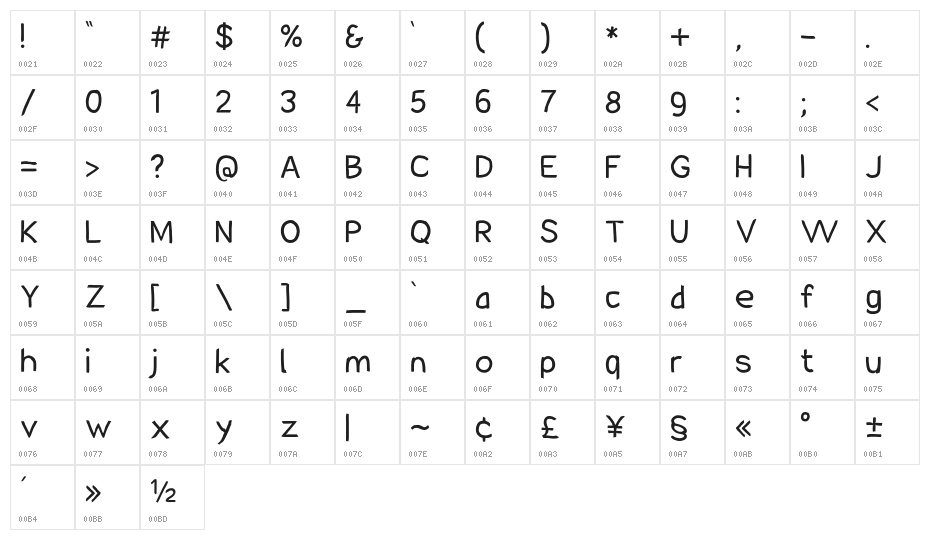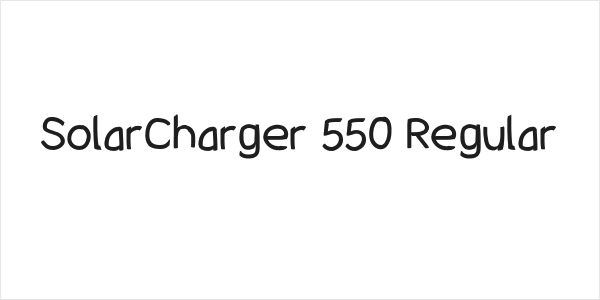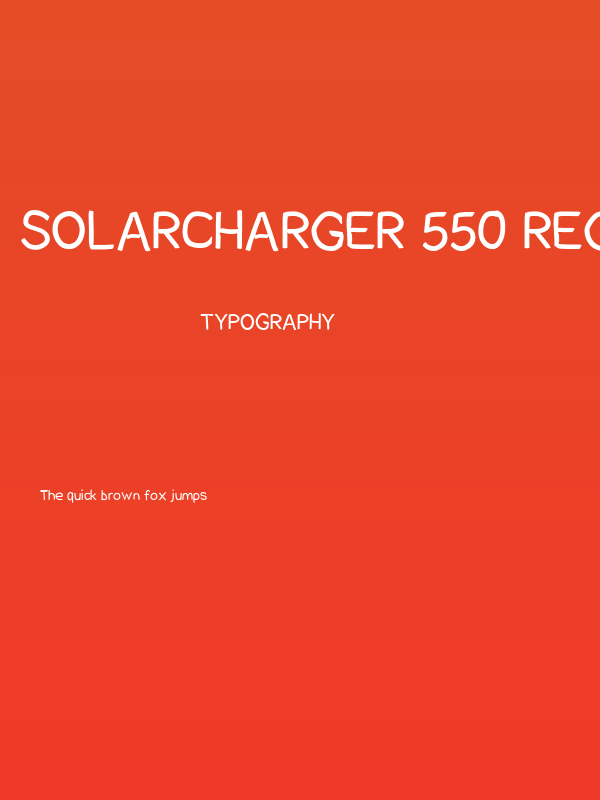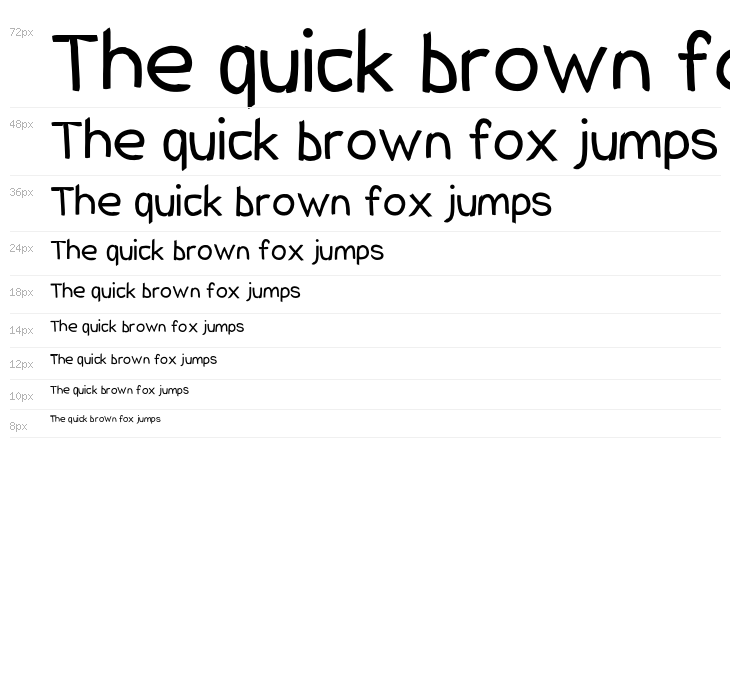
SolarCharger 550 Regular Font
SolarCharger 550 Regular Description
This font features a playful and informal style with a hand-drawn appearance. The characters are slightly irregular, giving it a casual and approachable feel. The uppercase and lowercase letters maintain a consistent width, while the numbers and special characters blend seamlessly with the overall design. The strokes are uniform in thickness, contributing to a balanced and harmonious look. This font is ideal for projects that require a friendly and engaging tone, such as children's books, casual branding, or creative posters.
| Proposed Projects | Children's books, casual branding, creative posters, informal invitations. |